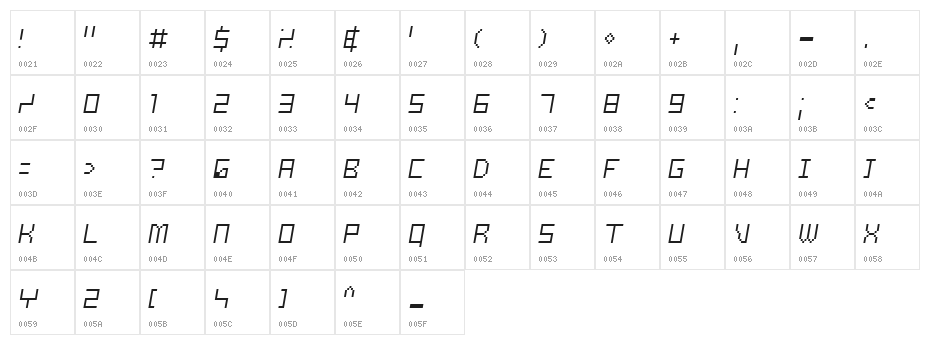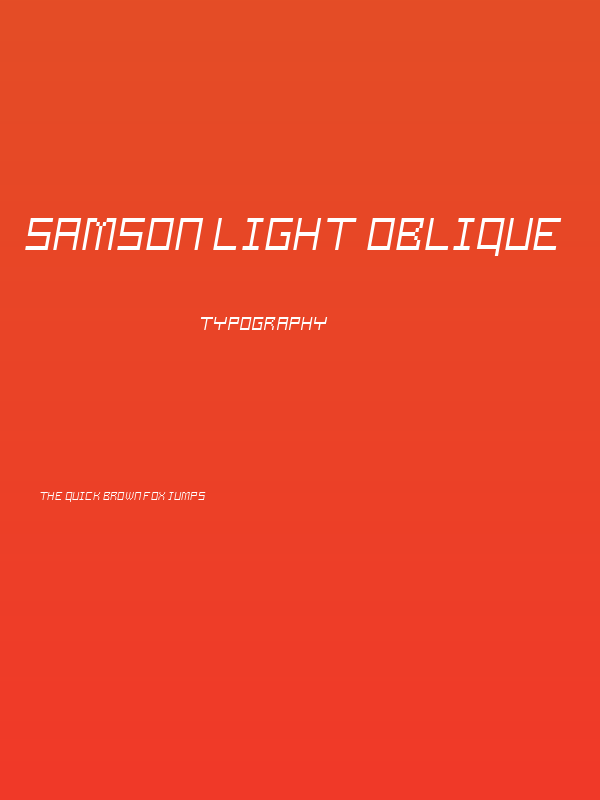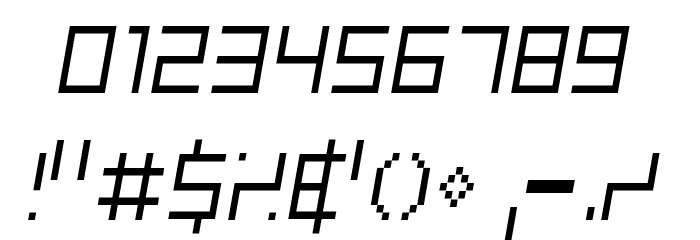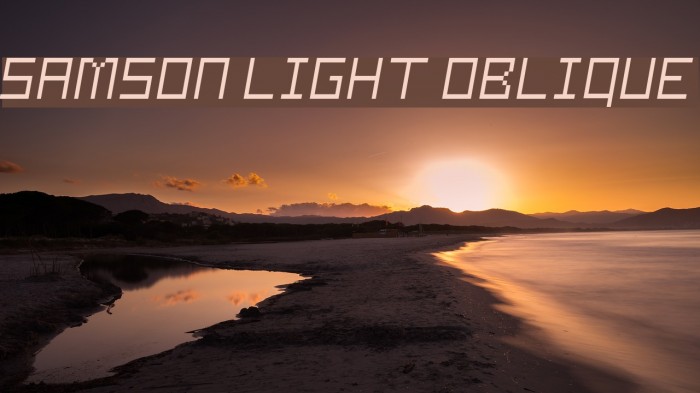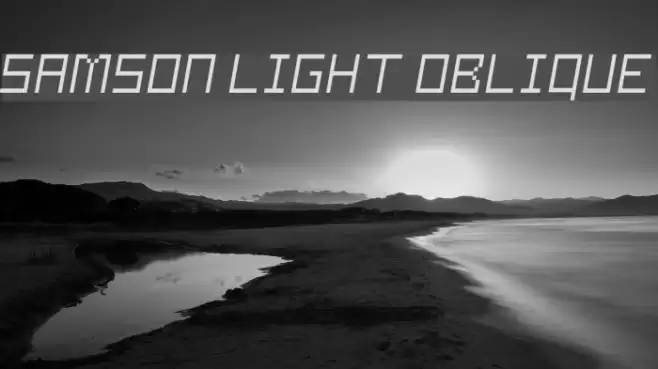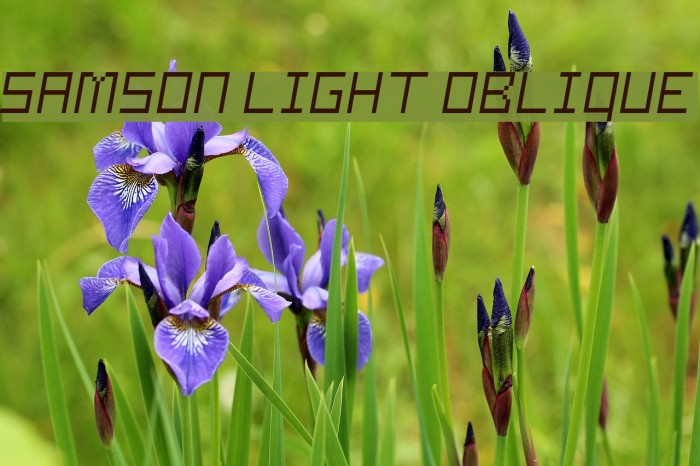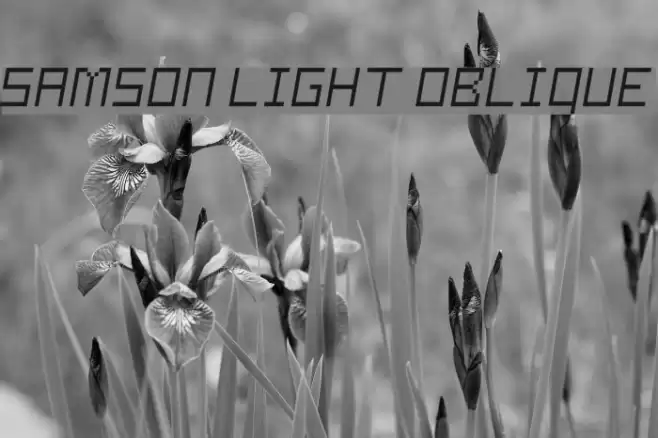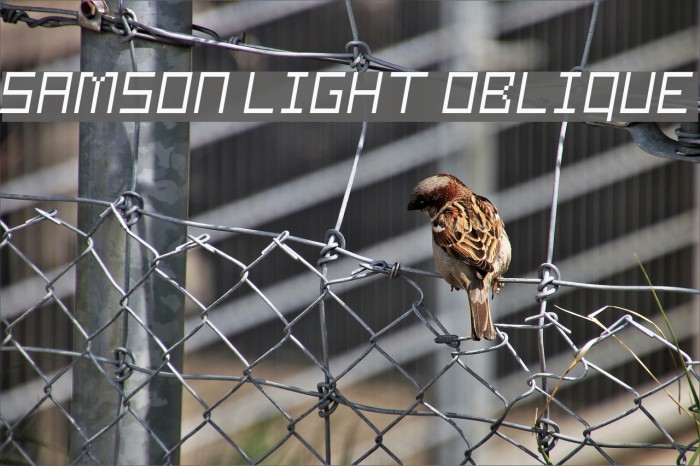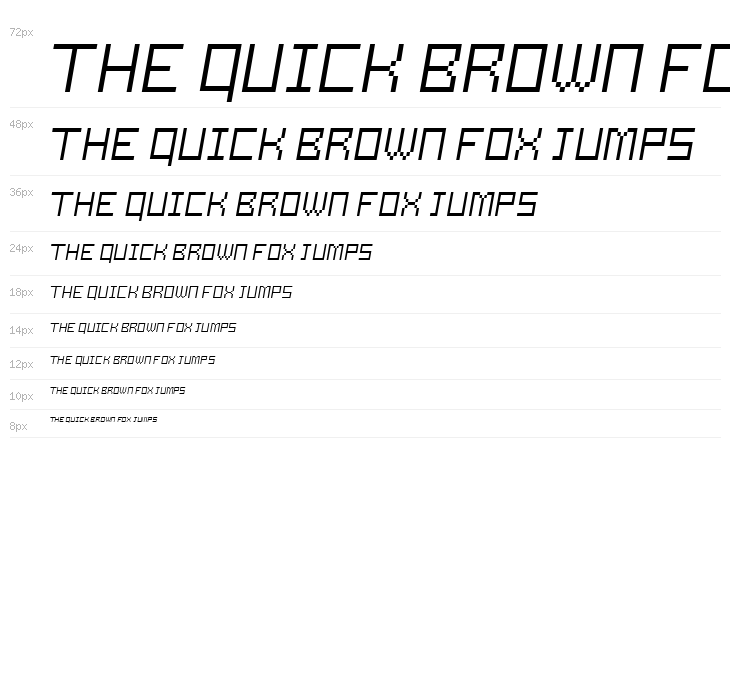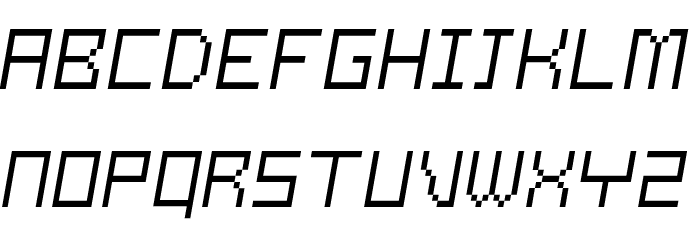
Samson Light Oblique Font
Samson Light Oblique Description
This font features a distinct pixelated style with a modern, digital aesthetic. Each character is constructed with a grid-like precision, giving it a unique, tech-inspired look. The oblique slant adds a dynamic feel, making it appear as if the text is in motion. The uppercase and lowercase letters maintain a consistent height, while the numerals and special characters follow the same structured design. The overall appearance is clean and futuristic, suitable for projects that require a digital or retro gaming vibe.
| Proposed Projects | Ideal for digital art, retro gaming interfaces, tech-themed posters, and modern web design. |